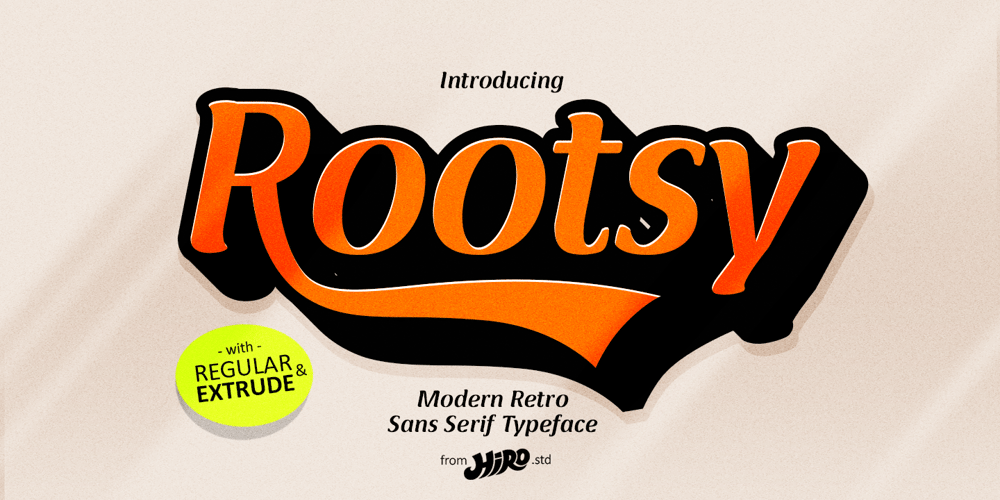
Rootsy Font Family was designed by Chairul Ashar and published by HIRO.std. Rootsy contains 2 styles and family package options. Rootsy is a Modern Retro Script Font.Rootsy has more than 553 Glyphs, It was very inspired from the modern retro typography designs in late 80’s untill 90’s.This font template contains Modern Retro, Retro, Cool, Readable, Stylish, catchy and easy to use.FEATURES- Ligatures- Stylistic Alternates- Stylistic Set- Extra end Swash- Uppercase and Lowercase letters- Numbering and Punctuations- Multilingual Support- Works on PC or Mac- Simple InstallationHope you like it.thanks.HIRO.std